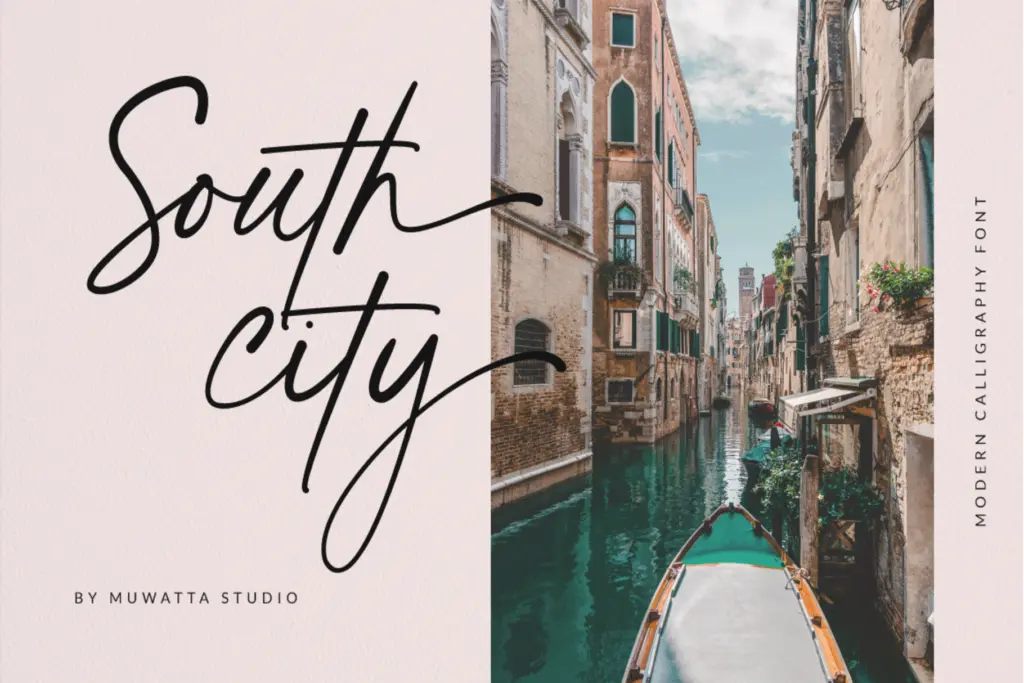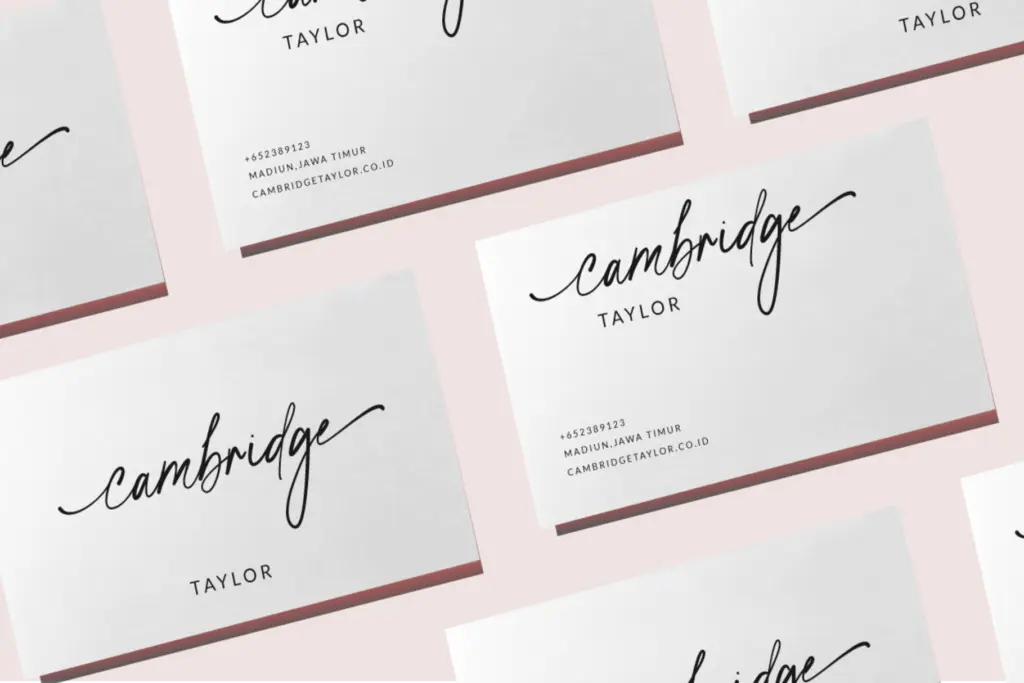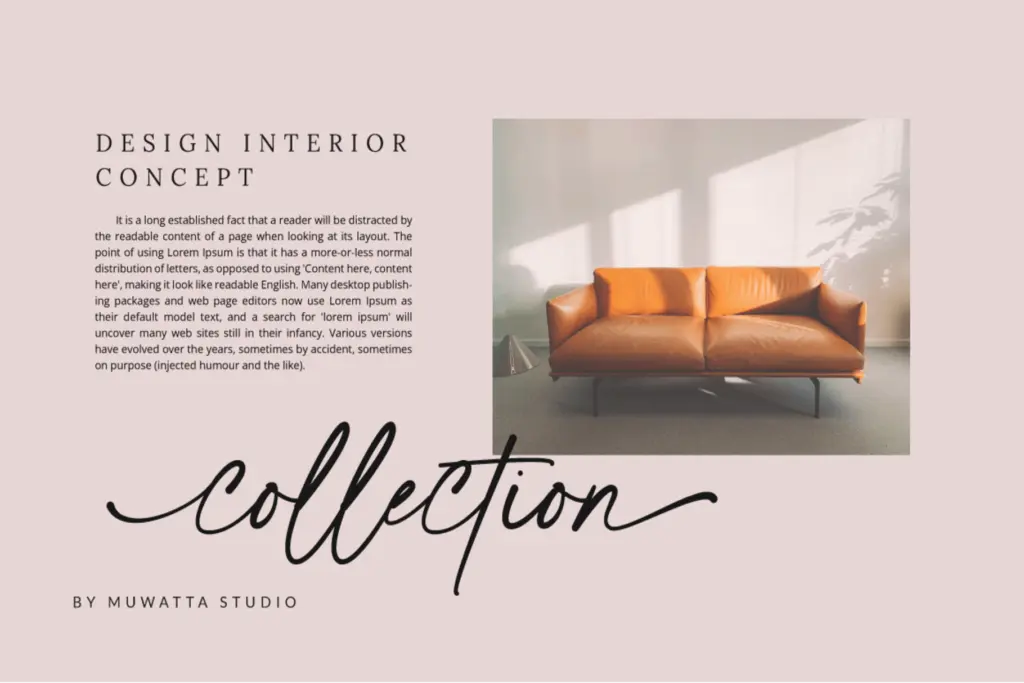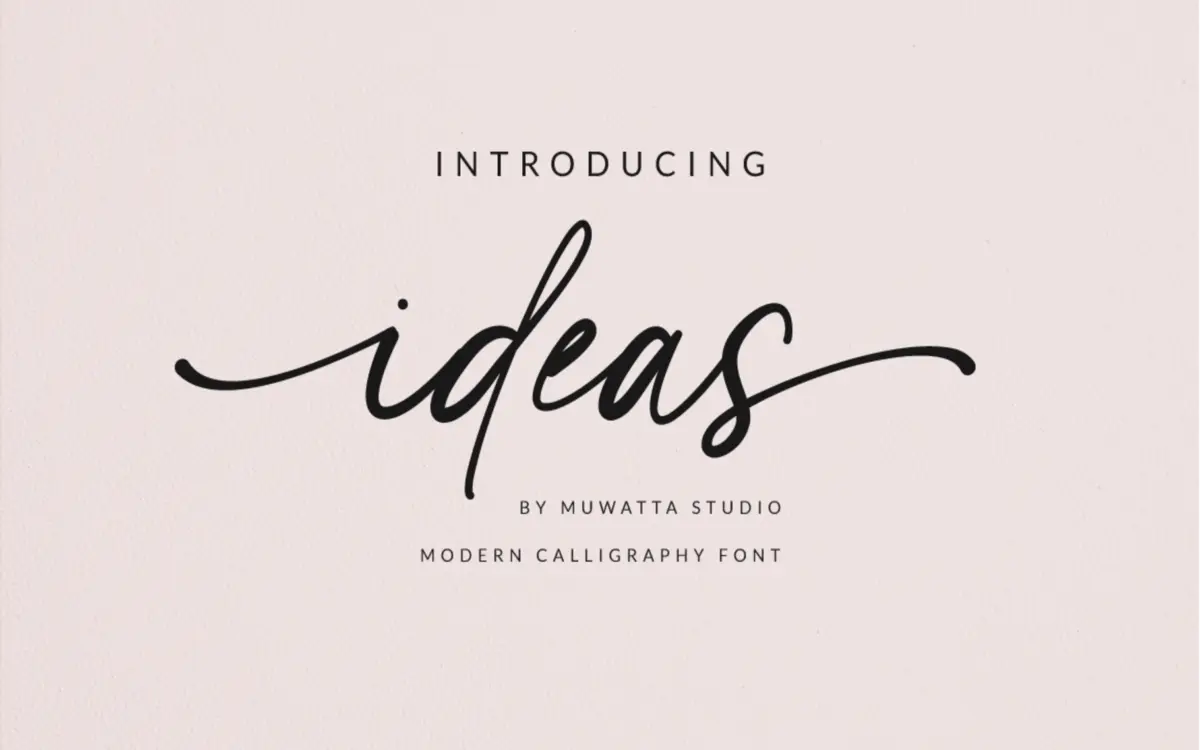
Ideas belongs to the crowded field of casual-formal scripts that split the difference between calligraphy and handwriting. The strokes carry moderate contrast, thickening through the downstrokes and thinning out on the connecting arcs, which gives it a written rather than engraved feel. Swashes are built into the capitals and some lowercase entry strokes, and they lean long and loose rather than tight and coiled, which keeps the overall texture relaxed instead of ornate.
Where it distinguishes itself from the flood of similar scripts is in the baseline behaviour. Letters bounce slightly rather than sitting rigidly, which reads as more handwritten and less templated. That said, the joins between certain lowercase pairs are inconsistent in how tightly they connect, so at a glance some words look like one continuous line and others look like separate lettered chunks stitched together. It is not a flaw that ruins the font, but it means you will need to check word-by-word rather than trusting the whole alphabet to behave uniformly.
The set covers uppercase and lowercase A–Z, numerals, and standard punctuation, plus a run of lowercase alternates and ligatures. The alternates are useful for breaking up repeated letters within a single word — the standard problem with any connecting script where a double letter or a run of similar shapes starts to look mechanical. The ligatures handle a handful of common letter pairs, smoothing transitions that would otherwise look abrupt.
Multilingual support is included, which extends the font’s reach beyond English-only branding work without requiring a separate license or workaround. There’s no mention of a companion sans or serif family, so this is a script working on its own rather than as part of a paired system — worth knowing if you’re building a full identity and need a body-copy partner.
The swash capitals are the feature that will get used or ignored depending on the job. They’re generous enough to make a strong opening letter on an invitation or logotype, but they need room — cramped layouts will clip them or force you to dial the swash alternates down to plainer capitals, which somewhat defeats the point of buying a swash script in the first place.
This is squarely an occasion font: wedding invitations, save-the-dates, place cards, and the kind of fashion branding that wants a handwritten signature look rather than a corporate one. It also does reasonable work as a short-form Instagram or website accent — a headline, a logo mark, a pull quote — where the reader isn’t parsing long sentences.
It is not built for body text or dense paragraphs; connecting scripts rarely are, and Ideas is no exception. At small sizes the fine hairline strokes lose definition, so keep it to display sizes and let a plainer typeface carry the reading copy. For a single-use event suite or a fashion logotype, it does the job cleanly. For a full brand system needing multiple weights and a matching text face, you’ll need to source that separately.
- Lowercase alternates and ligatures genuinely help avoid repetitive letter patterns
- Generous swash capitals give strong opening letters for invitations and logotypes
- Slight baseline bounce keeps the script feeling handwritten rather than templated
- Connection tightness between letter pairs is inconsistent, so some words look stitched together
- No companion family included, so pairing for body text is left entirely to the buyer
Ideas is a competent, casually elegant swash script suited to wedding stationery and fashion branding, with useful alternates and ligatures for breaking up repetition. It's not remarkable enough to stand above the crowded script-font market, and its inconsistent joins mean some words need manual checking. Fine for a single event suite or logotype, less so as the backbone of a full brand system.